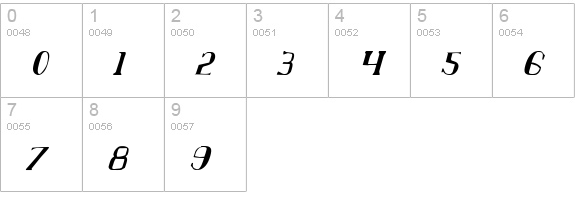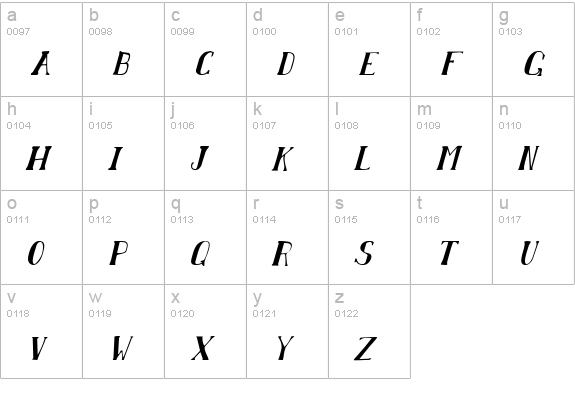
Chardin Doihle Condensed Italic is a distinctive, condensed-width, italic variant in the Chardin typeface family \xE2\x80\x94 well suited to design and typography projects.
Chardin Doihle Condensed Italic font is a sleek and elegant typeface that exudes sophistication and modernity. Its unique italicized style adds a touch of flair to any design project. The condensed form of the letters allows for more text to fit in a limited space without sacrificing readability. This font is perfect for creating eye-catching headlines, stylish logos, and elegant invitations. Its versatility makes it suitable for a wide range of design applications, from branding to editorial design. Whether you're working on a website, a poster, or a business card, Chardin Doihle Condensed Italic font will elevate your design to the next level. The best part? Chardin Doihle Condensed Italic font is available for free download at FontsMarket.com. Download this beautiful font today and add a touch of sophistication to your design projects.